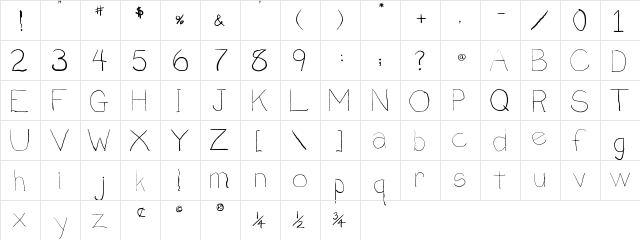
Stosh Regular
Design Context for Stosh Typeface
Stosh takes a measured approach to typography — its balanced proportions and neutral character make it a reliable workhorse for both digital and print work.
Pro Tip: Use Stosh in both headline and body roles to test its range before committing to a single application.